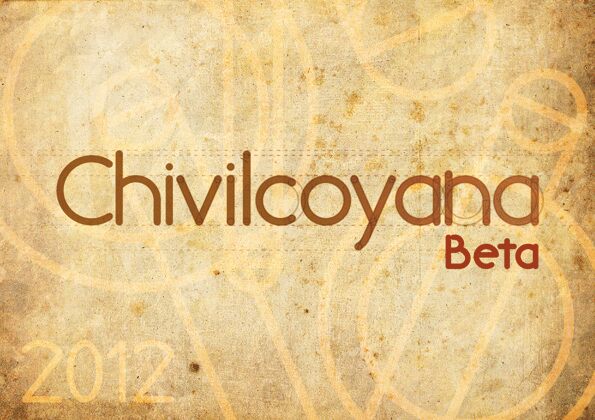
Chivilcoyana by Juan Ignacio Felice is a free geometric sans serif with a light, Art Deco-inflected build. Its tall letters mix broad circles with sharply peaked diagonals and long horizontal strokes. Together, these details make the lettering airy and distinctly architectural.
Its Art Deco geometry suits posters and fashion publishing. Rounded forms also fit boutique packaging and event identities. In signage, the extended bars and pointed capitals can become part of a custom border or emblem rather than neutral text.
Chivilcoyana Regular is a beta version. It contains uppercase and lowercase letters, punctuation marks, numbers, and accented characters. Ligatures, kerning, and tracking adjustments are not included.